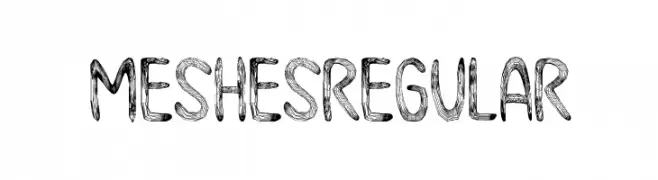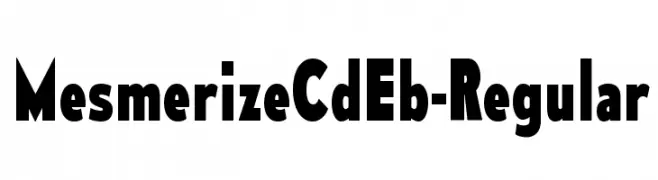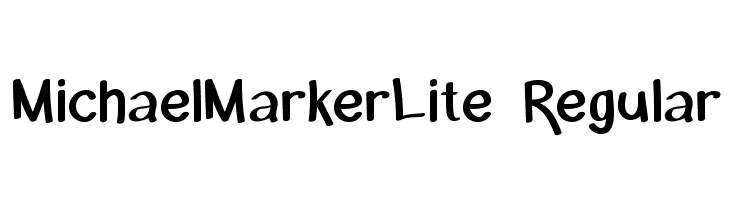
( Vladimir Nikolic - www.coroflot.com/vladimirnikolic )
A hand-drawn, mesh-patterned font with artistic flair.
( Fonts by ilhamtaro )
A distressed serif font with a vintage, rugged appearance.
( Fonts by Md Shohail Bhuian )
Playful handwritten font with rounded edges.
( Typodermic Fonts - Ray Larabie - www.typodermicfonts.com/ )
A modern, italic font with sleek, dynamic lines and balanced proportions.
( Typodermic Fonts - Ray Larabie - www.typodermicfonts.com/ )
A modern sans-serif font with clean lines and balanced proportions.
( Typodermic Fonts - Ray Larabie - www.typodermicfonts.com/ )
A modern, italicized font with medium contrast and a sleek, condensed style.
( Typodermic Fonts - Ray Larabie - www.typodermicfonts.com/ )
A modern, condensed sans-serif font with clean lines and uniform strokes.
( Typodermic Fonts - Ray Larabie - www.typodermicfonts.com/ )
Bold, italic, and dynamic with a modern, assertive style.
( Typodermic Fonts - Ray Larabie - www.typodermicfonts.com/ )
A bold, geometric font with strong, uniform letterforms.